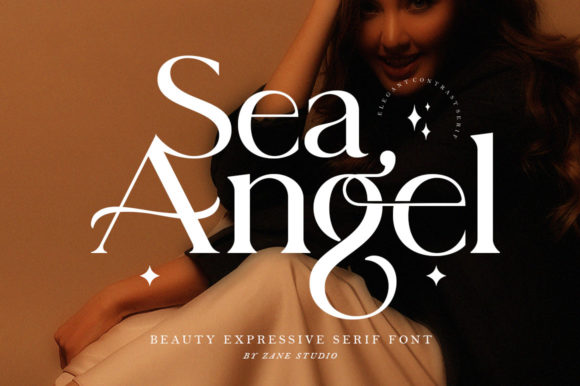
Introducing Sea Angel Font, the ultimate choice for creating captivating social media ads! Crafted by the renowned Zane Studio, this distinct and elegant serif font will elevate your designs to new heights. With its PUA encoding, accessing a vast array of glyphs and swashes has never been easier!
Sea Angel Font is more than just a font; it's a powerful tool that will make your projects stand out from the crowd. Whether you're a seasoned designer or just starting out, this font is perfect for anyone looking to create eye-catching and professional-looking social media ads.
Why settle for ordinary when you can have extraordinary? Sea Angel Font offers a unique blend of sophistication and creativity, making it the best font for your social media ad campaigns. Its graceful curves and timeless design will effortlessly capture the attention of your audience, leaving a lasting impression.
Get ready to unleash your creativity and take your designs to the next level. Sea Angel Font provides endless possibilities, allowing you to create stunning headlines, captivating captions, and compelling call-to-action buttons. With this font in your arsenal, your social media ads will not only attract attention but also drive conversions.
But that's not all! Sea Angel Font is incredibly versatile, making it suitable for a wide range of projects beyond social media ads. From website headers to print materials, this font adapts seamlessly to any medium. Its elegance and professionalism will add a touch of class to your brand, helping you establish a strong and memorable visual identity.
In a world where attention spans are shrinking, it's crucial to make a lasting impression. Sea Angel Font empowers you to do just that. Its captivating charm and versatility will ensure that your social media ads not only grab attention but also leave a lasting impact on your audience.
Unlock the true potential of your designs with Sea Angel Font - the font that speaks volumes without saying a word. Embrace elegance, sophistication, and creativity like never before. Download this remarkable font now and watch your social media ads soar to new heights!